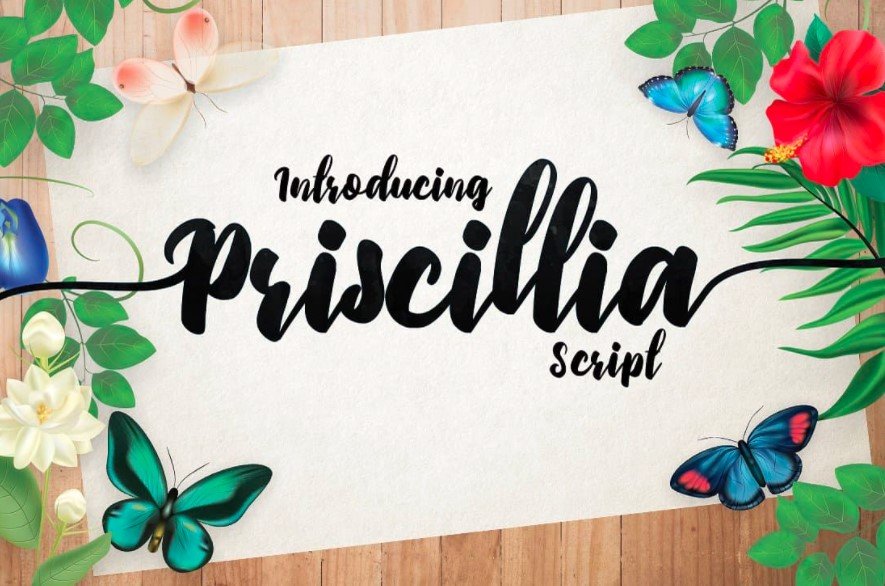
Priscillia Script Font
It is a dedicated and super amazing typeface to use for all your great projects for free. It contains useful glyphs, ligatures, characters, and design layouts.
About Priscillia Script Font
Hey there, we are providing the great and amazing scripted typeface which is Priscillia Script Font that contains quite beautiful and having amazing looks which are great to use in precious designs for free.
It is a dedicated and super amazing typeface to use for all your great projects for free. It contains useful glyphs, ligatures, characters, and design layouts.
The projects that is build with this font look great on big screens as well. This is one of the best and unique typefaces which is used in all over the world with the combination of the typeface.